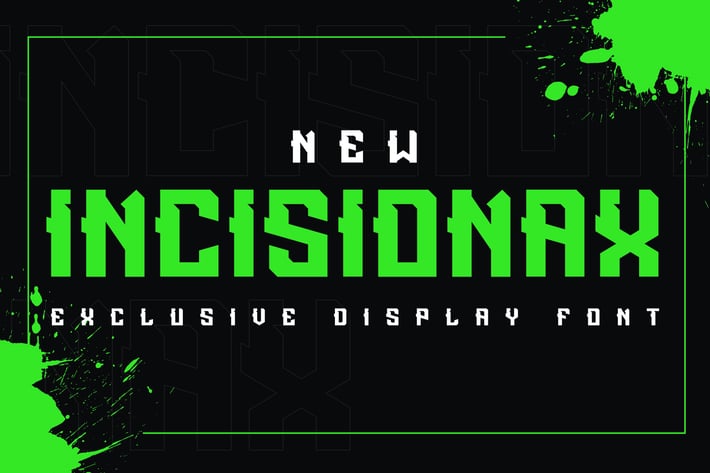
Incisionax Exclusive Display Font
Incisionax Exclusive Display font, is our new item that suitable for your team logo, or community logo.
Great for Logo, Sticker, Jersey, Invitation Card, Brochure, etc.